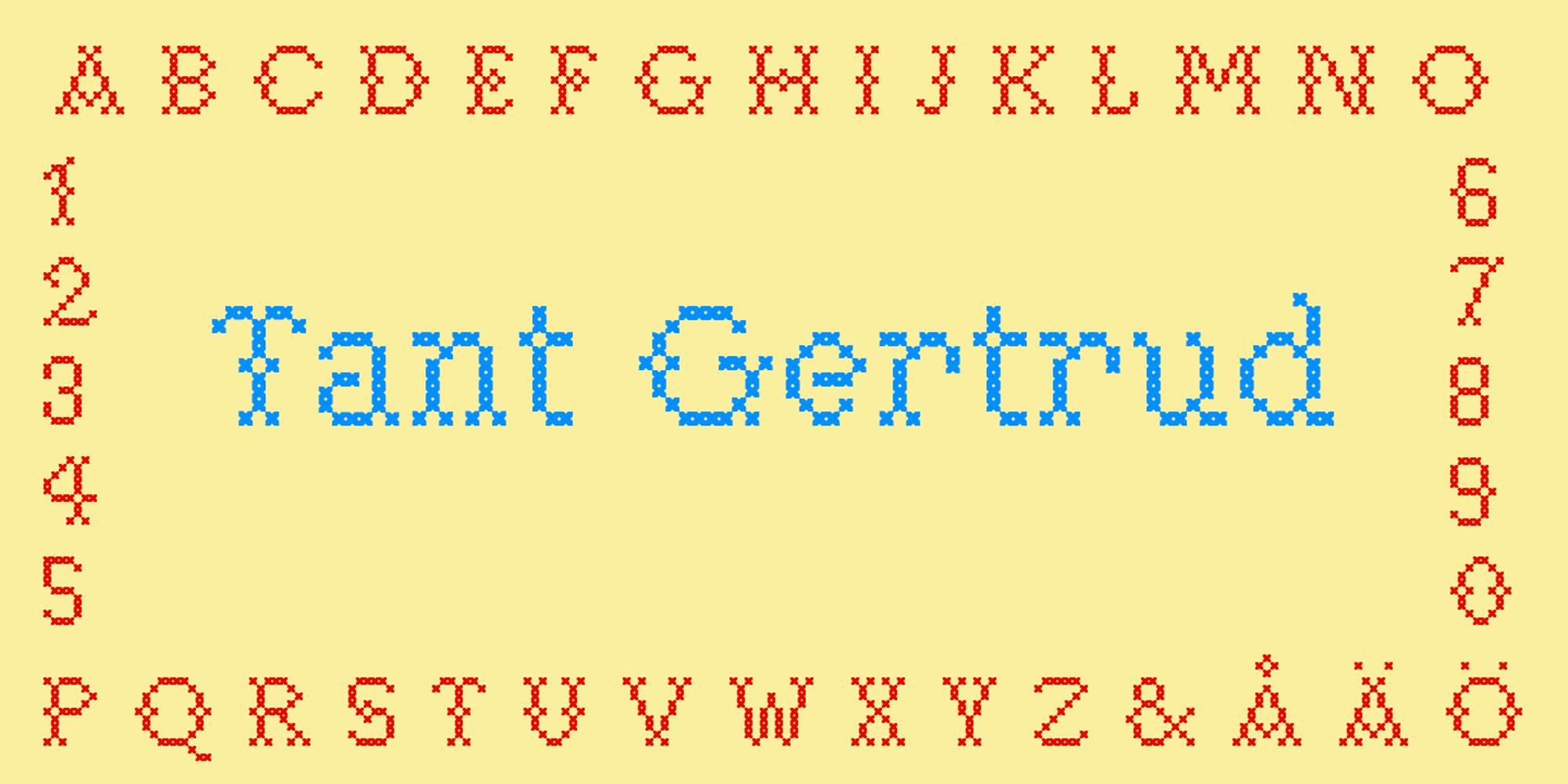
The Tant Gertrud Font is a charming and often rustic typeface, reminiscent of handcrafted lettering or vintage folk art. Its unique character, which might include slight irregularities, a hand-painted texture, or a whimsical feel, makes it an excellent choice for artisanal product packaging, cozy café branding, children's book illustrations, farm-to-table restaurant menus, craft fair signage, and invitations for rustic-themed events. Whether you’re designing a warm and inviting logo or a quaint promotional piece, this font will infuse your project with a sense of homespun charm and approachable authenticity.
What makes the Tant Gertrud Font so exciting is its ability to convey warmth and a personal touch, making it feel genuinely unique. It often balances a distinctive, artistic style with a clear structure, making it both endearing and functional. This font is perfect for designers who want to create a sense of nostalgia, bespoke quality, or a connection to simpler times. It stands out by offering a unique visual voice that is both captivating and memorable, making any text it graces feel like an integral part of a heartwarming narrative. The subtle imperfections often found within its letterforms add to its authentic character, giving it a distinct and inviting presence.
The Tant Gertrud Font typically offers a versatile range of features to support diverse design needs. While specific offerings may vary depending on the font package, you can generally expect to find a Regular weight, often complemented by a Bold version for added emphasis and versatility. Some versions of the Tant Gertrud Font Free Download might also include alternate characters, ligatures (connecting letter pairs), or even a small collection of ornamental elements designed to complement its unique personality, allowing for even greater customization and thematic depth. These features ensure that the Tant Gertrud Font can be adapted to almost any design requirement where an artistic, charming, or nostalgic statement is desired, maintaining its consistent whimsical appeal throughout your project.